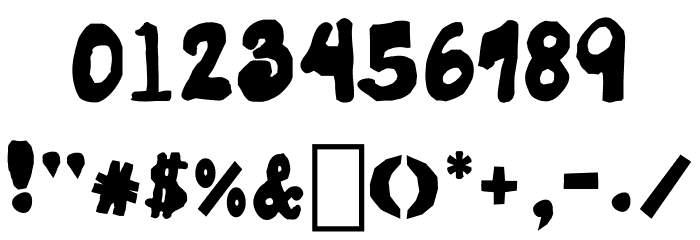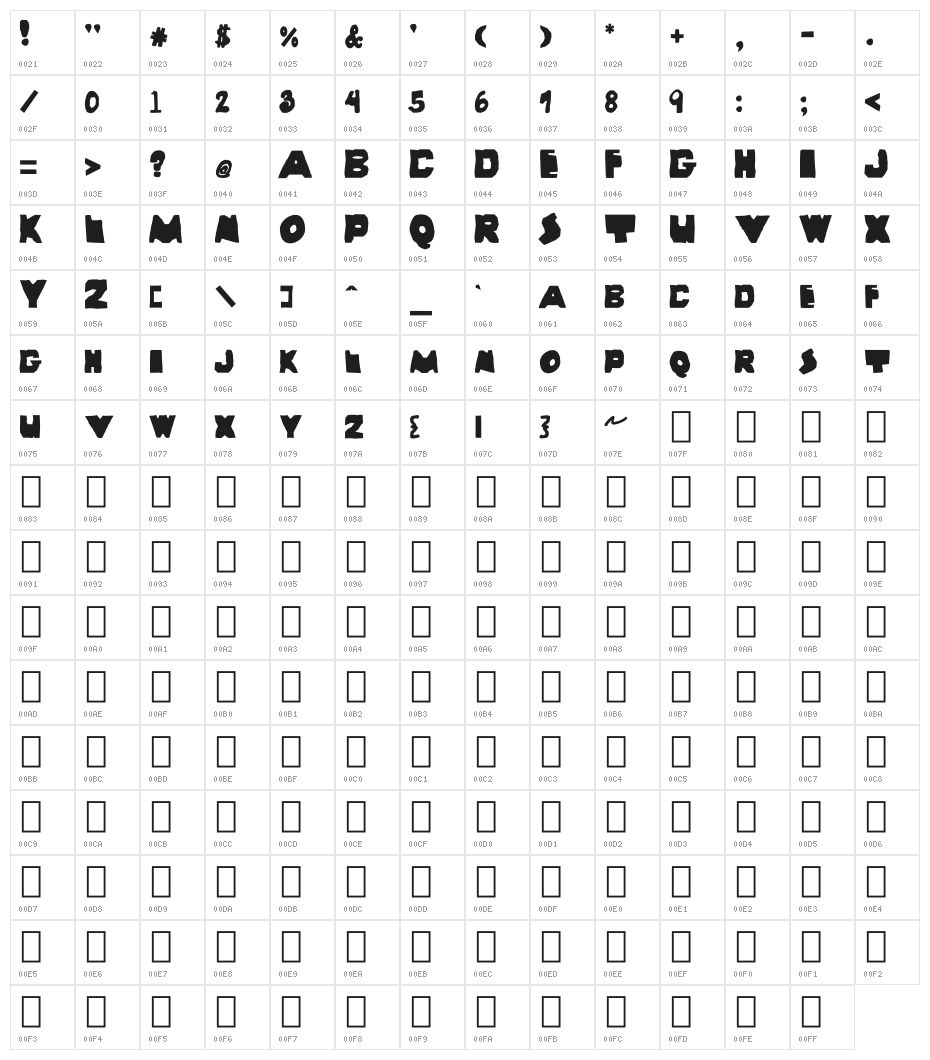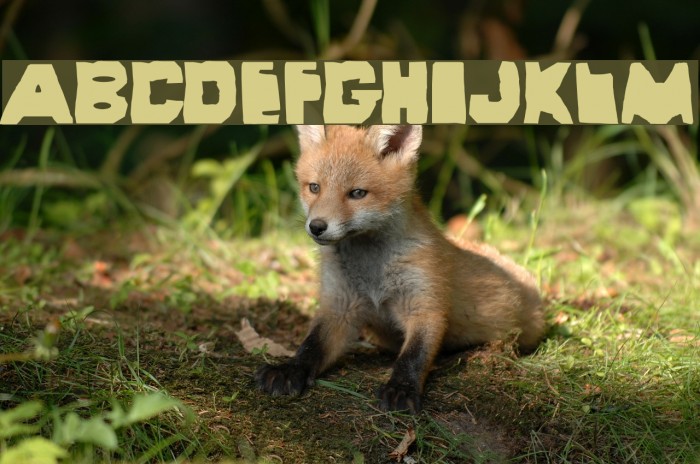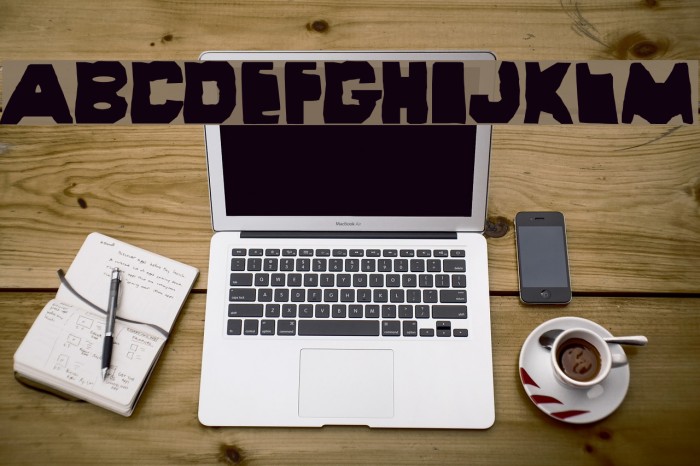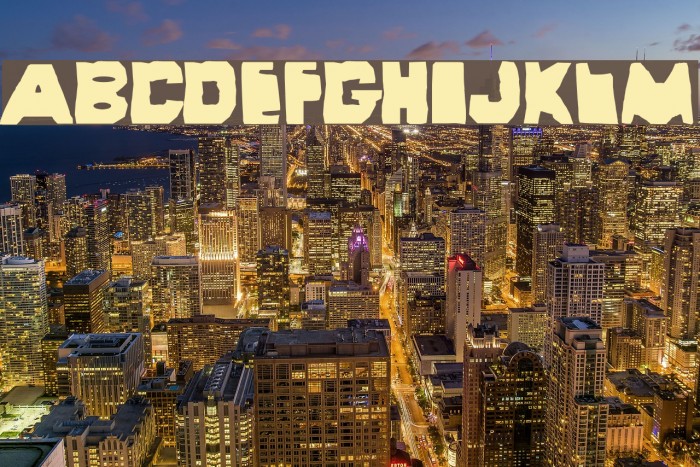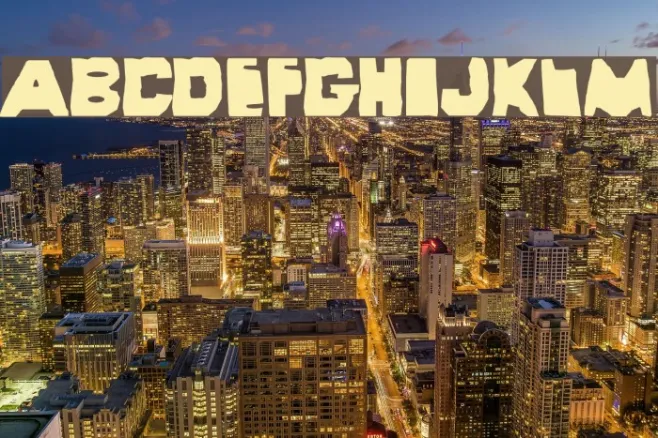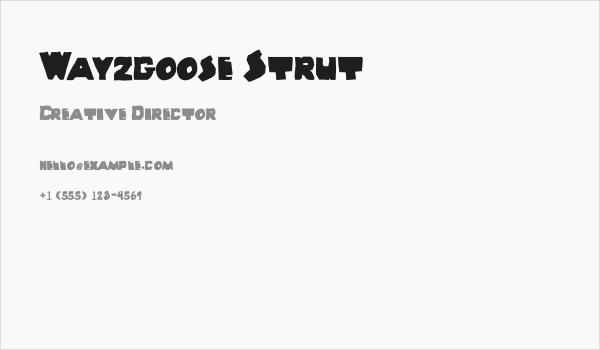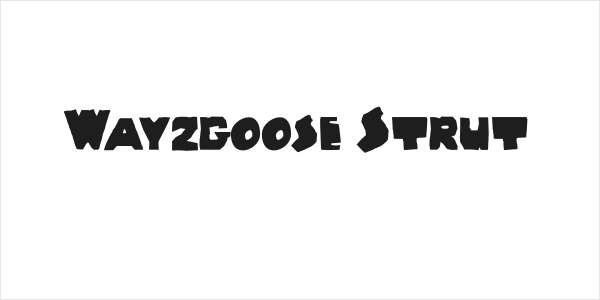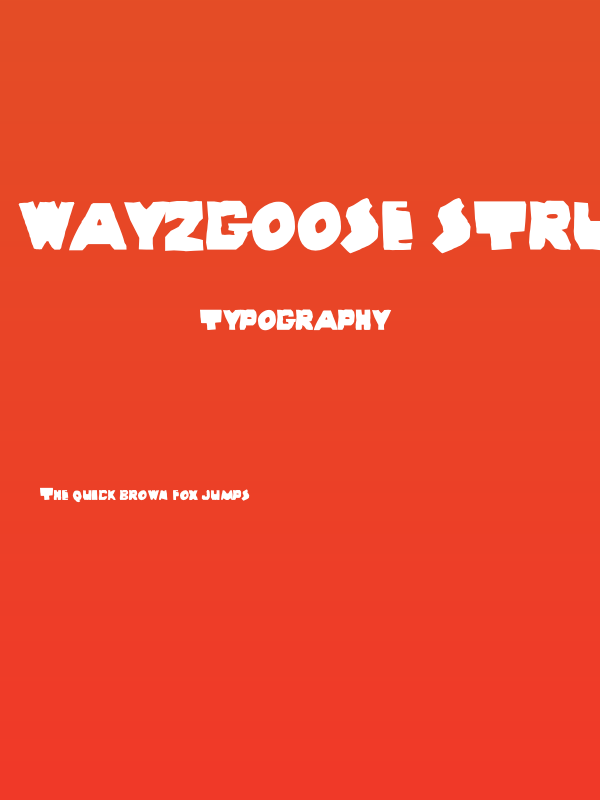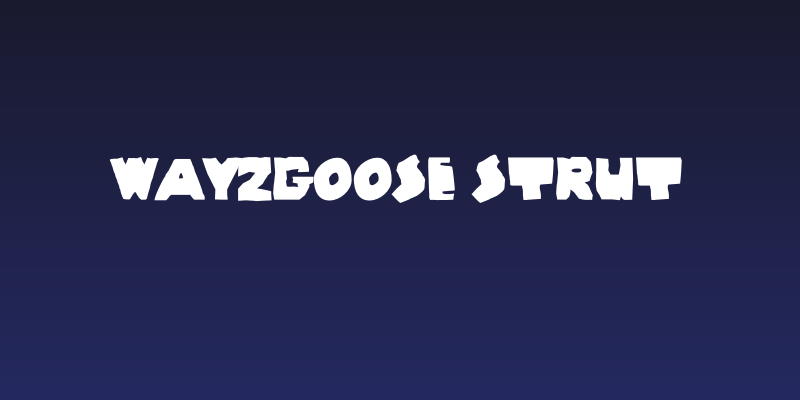
Wayzgoose Strut Font
Wayzgoose Strut Description
This font features a bold and striking design with a playful, irregular structure. Each character appears to have been crafted with a hand-cut aesthetic, giving it a unique and artistic flair. The uppercase letters are robust and commanding, while the lowercase letters maintain a consistent style, ensuring readability despite their unconventional shapes. Numbers and special characters follow the same bold and dynamic style, making them stand out. The overall appearance is both rugged and whimsical, suitable for projects that require a touch of creativity and boldness.
| Proposed Projects | Ideal for posters, album covers, children's books, and creative branding projects. |